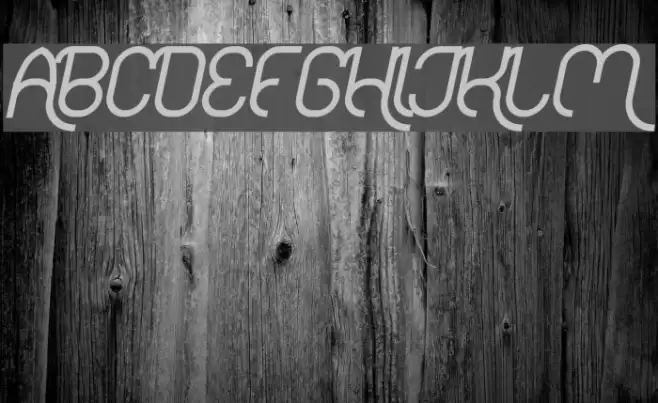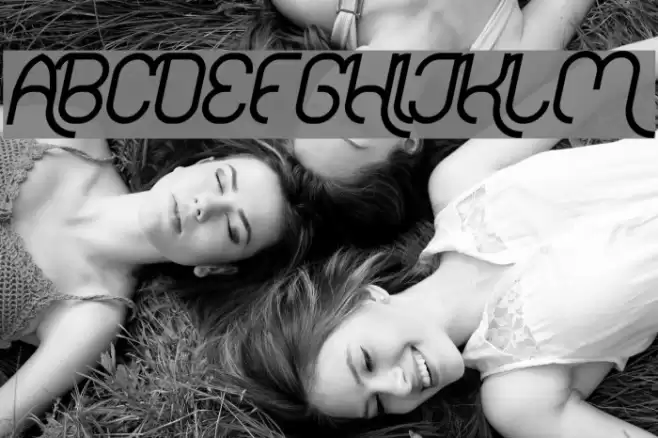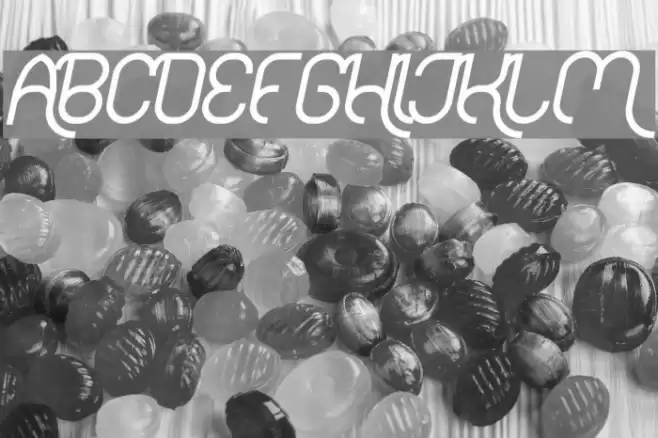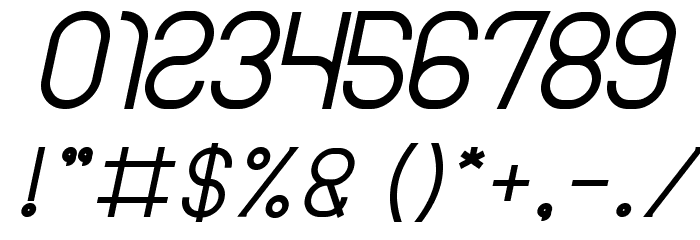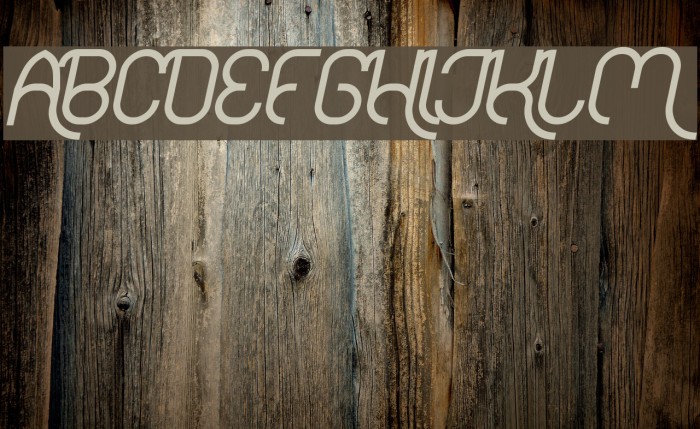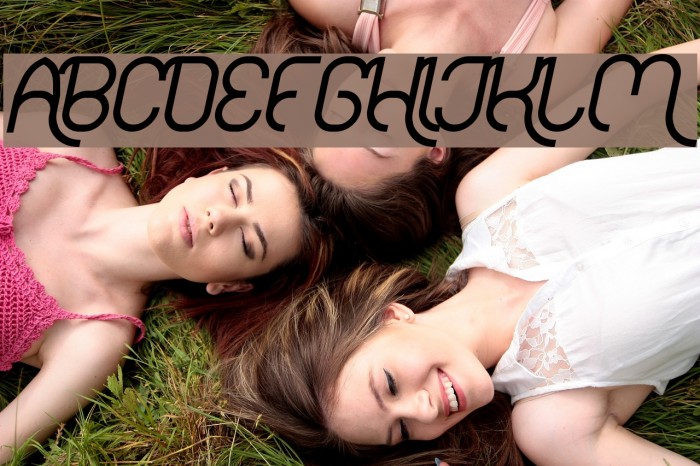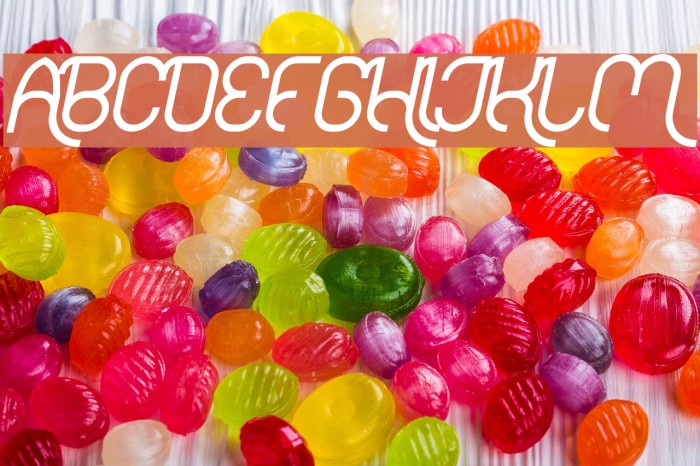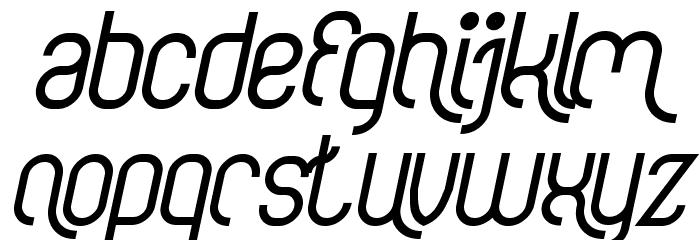
FALLINGINLOVE-BoldItalic Font
FALLINGINLOVE-BoldItalic Description
This font features a dynamic and flowing script style with a bold and italicized appearance. The characters are elegantly curved, creating a sense of movement and fluidity. Uppercase letters maintain a consistent height, while lowercase letters are slightly smaller, adding to the overall balance. The numbers are distinct and maintain the same flowing style, ensuring readability. Special characters are well-integrated, matching the font's overall aesthetic. The design is both modern and playful, making it suitable for a variety of creative applications.
A bold, italic script font with dynamic curves and a modern flair from Uncategorized fonts.
- Proposed Projects: Ideal for wedding invitations, greeting cards, branding projects, and creative posters.
- Use Case: Logos, Headlines, Decorative text